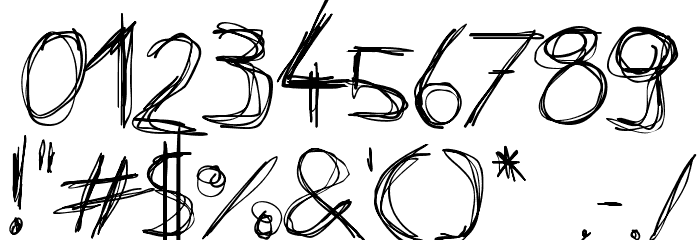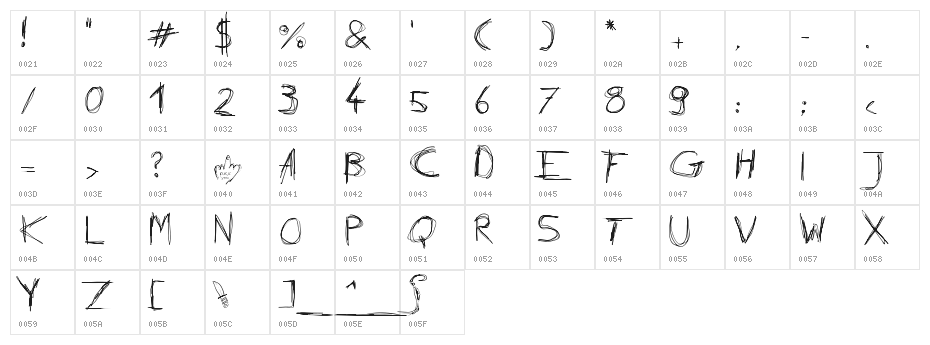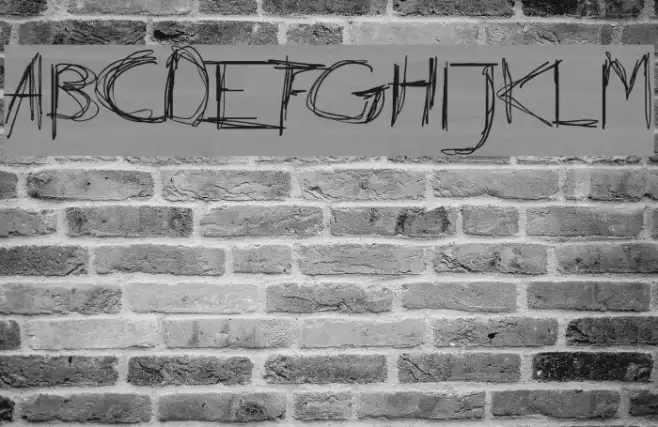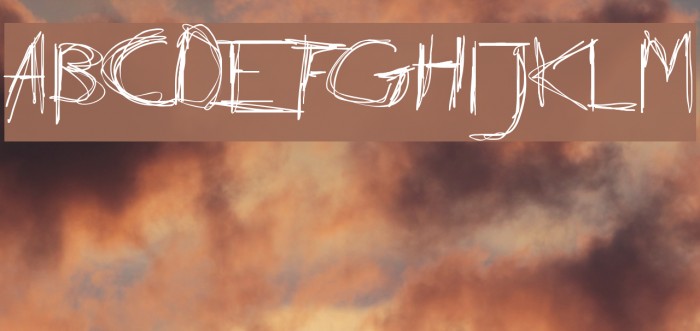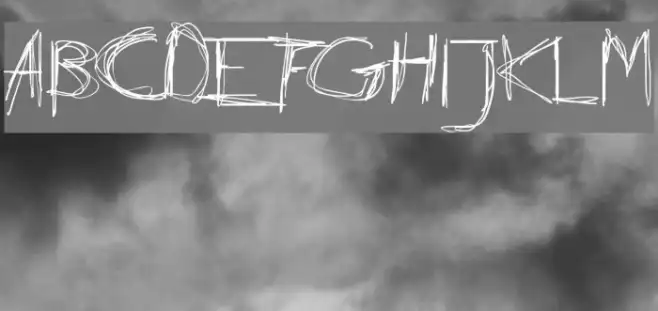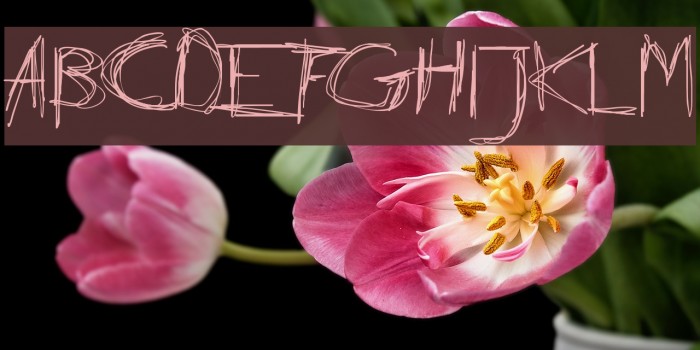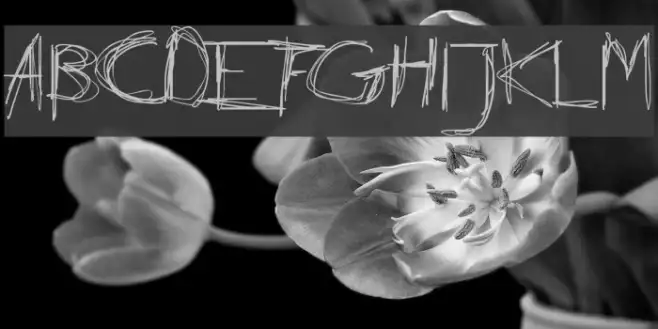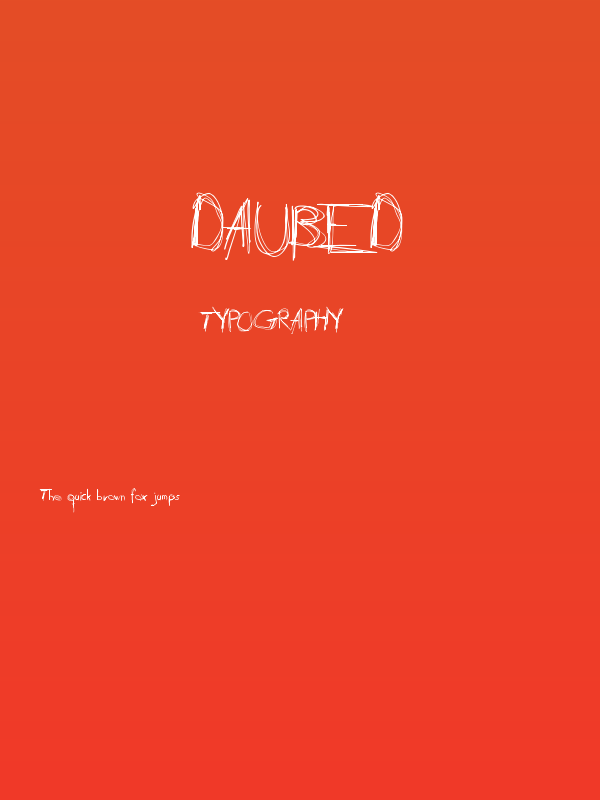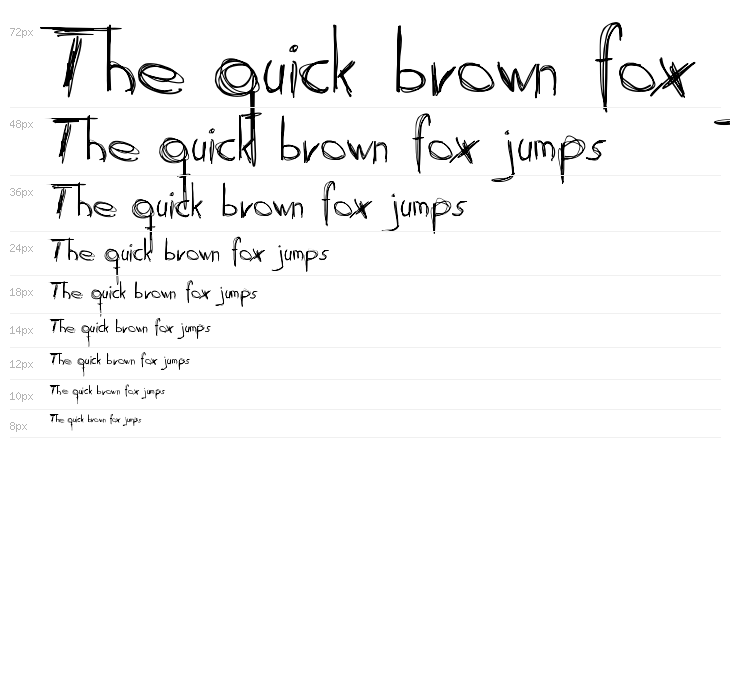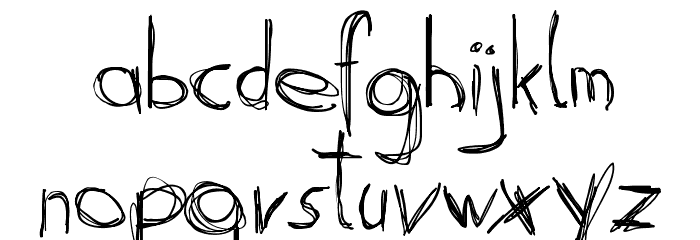
Daubed Font
Daubed Description
This font exhibits a raw, hand-drawn style that mimics the appearance of being sketched with a marker or pen. The characters are irregular and have a spontaneous, artistic feel, with strokes that vary in thickness, creating a dynamic and energetic look. The uppercase and lowercase letters maintain a consistent style, with exaggerated curves and angles that give the font a unique personality. Numbers and special characters are equally expressive, adding to the overall cohesive design. This font is ideal for projects that require a bold, creative touch, such as artistic posters, album covers, or any design that seeks to convey a sense of individuality and flair.
| Use Case | Headlines, Logos, Artistic Designs |
| Proposed Projects | Ideal for artistic posters, album covers, creative branding, and any design needing a bold, unique touch. |